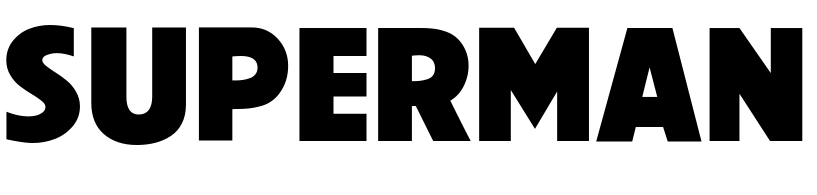
Superman Font
AdventureSuperman is a fictional superhero from planet Krypton with superhuman abilities. Created in 1938, he's an iconic figure in comic book history.
On the comic book cover of Superman, a special typeface with some 3D effects is used for the title. The lettering is quite reminiscent of a font called Up Up and Away created by John Roshell. The font is a commercial one and you can find more details about it here.